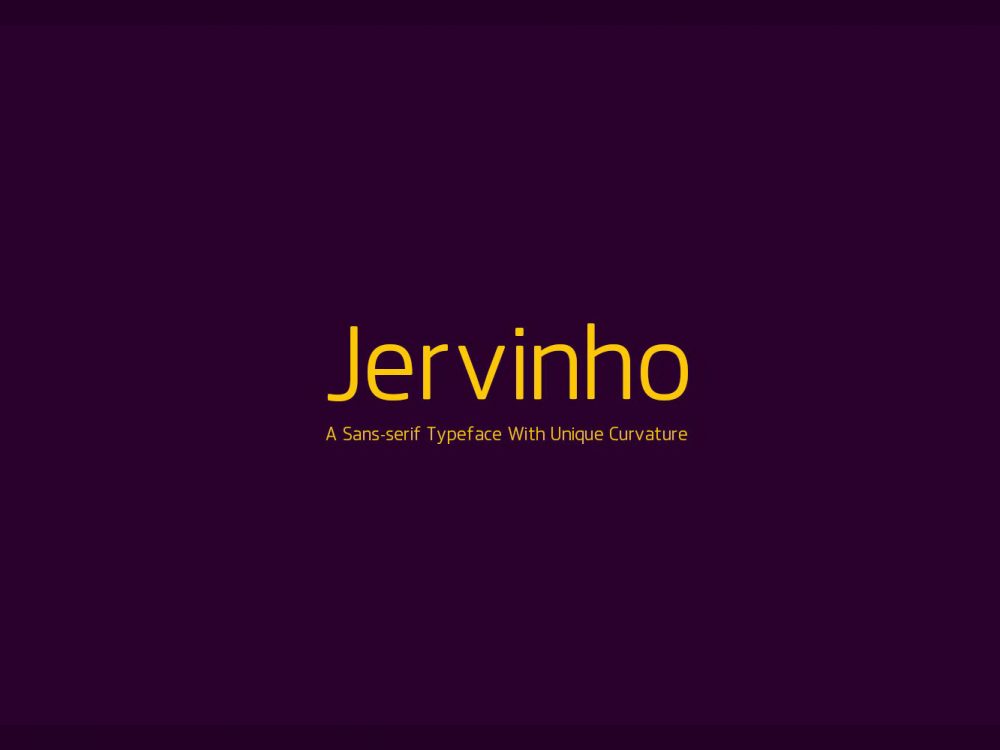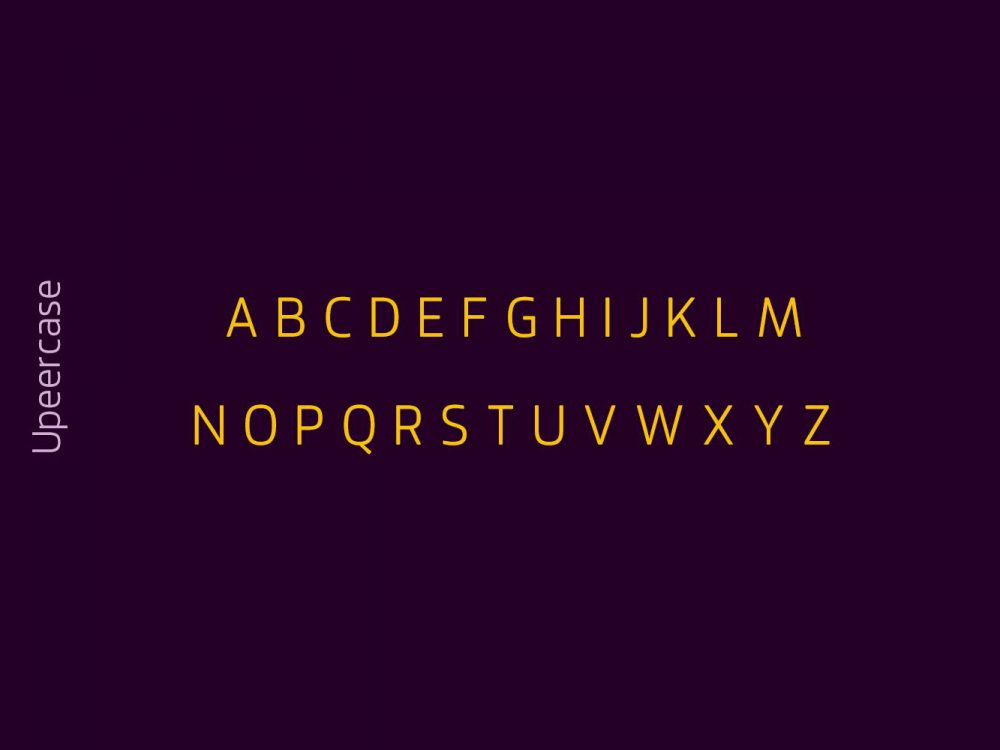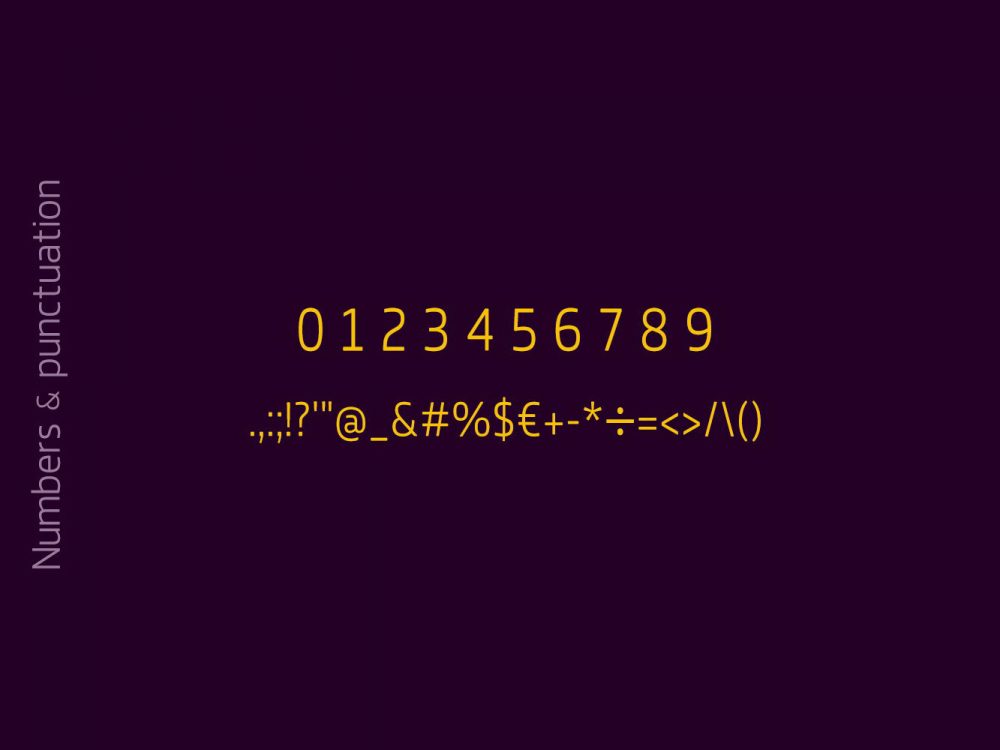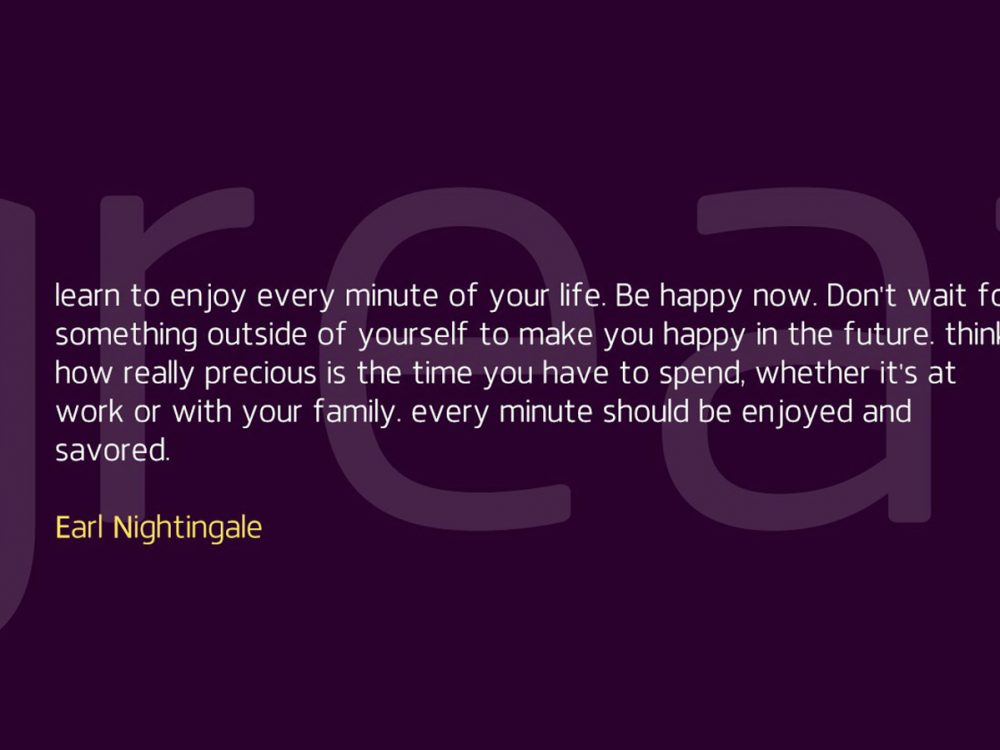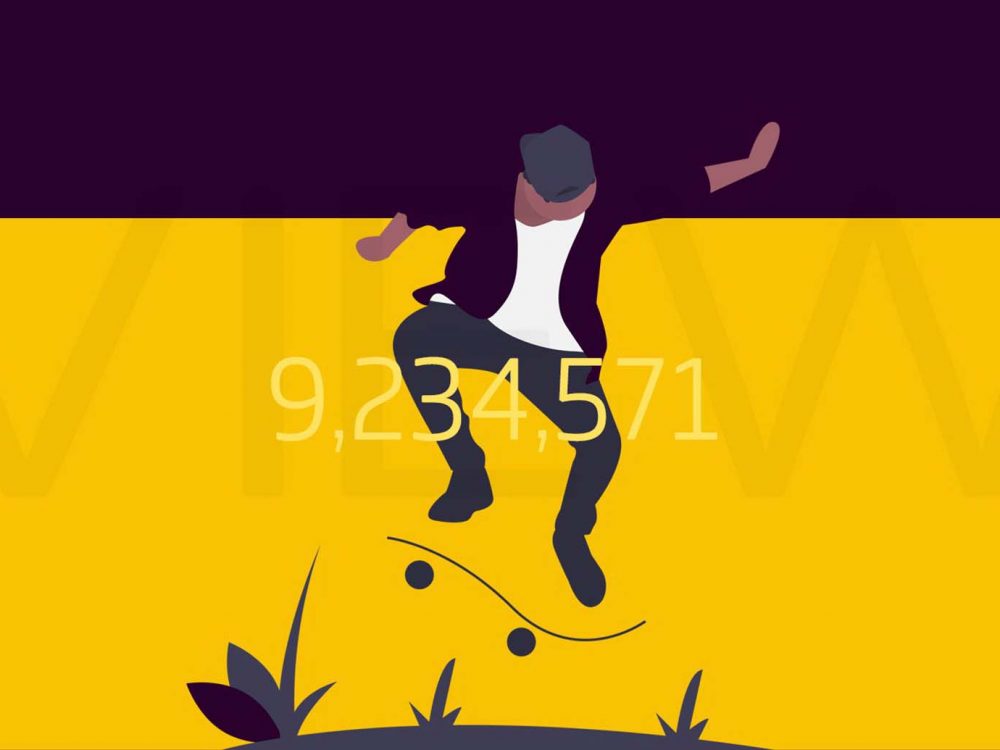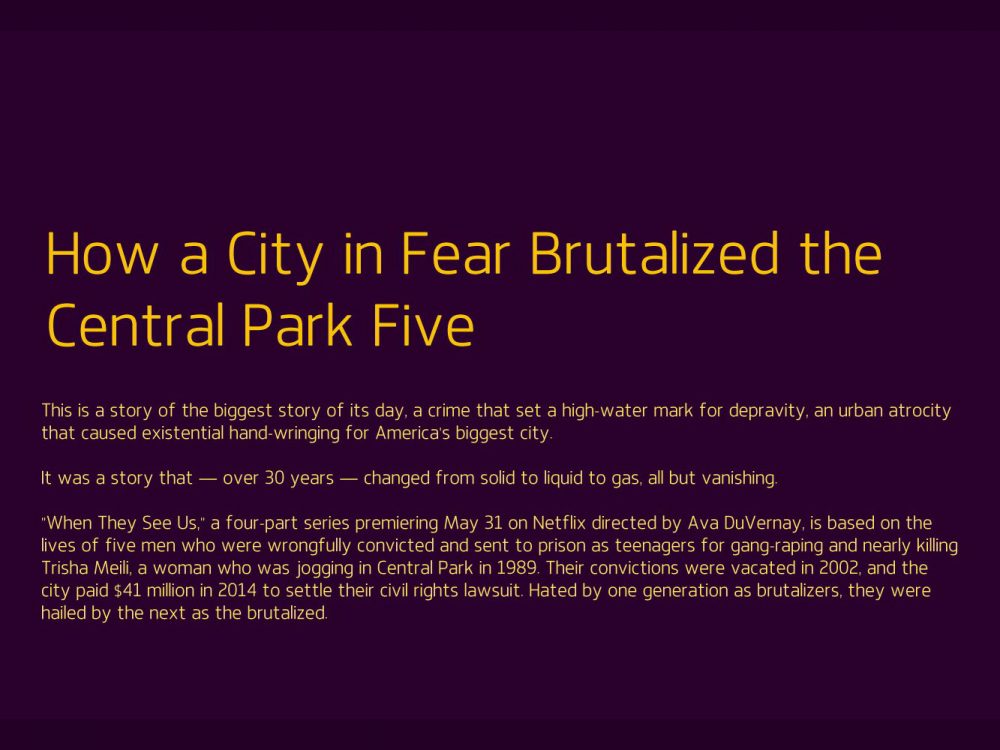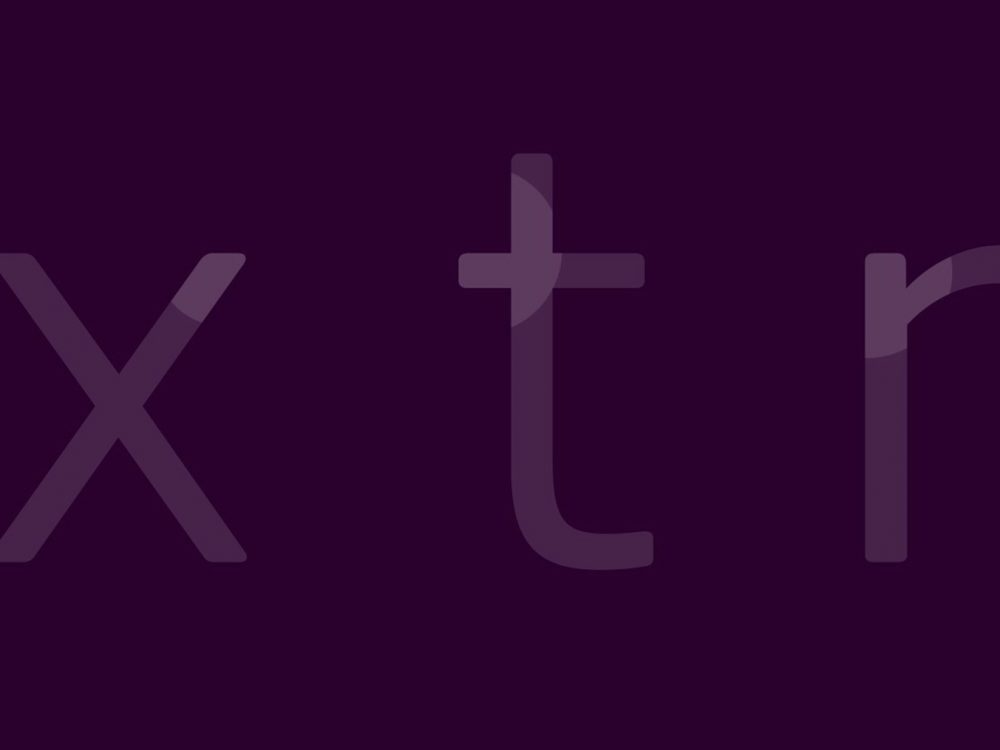
Free Jervinho Font
Free Jervinho Font is an interesting modern sans-serif typeface that will help you create unique design projects such as invitations, cards, posters, designs for business cards, logos, and much more. Please, purchase the full version for commercial use.